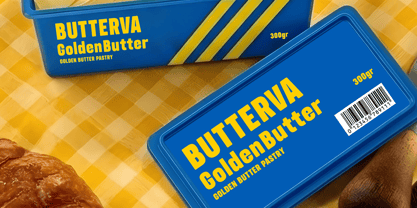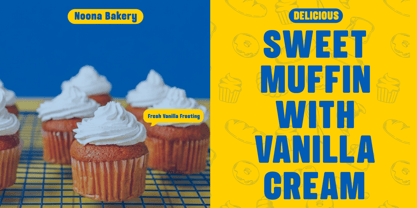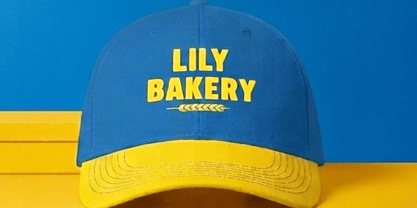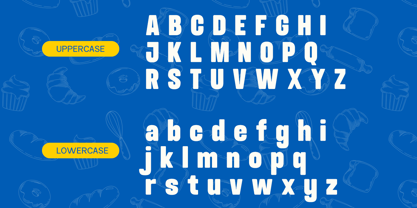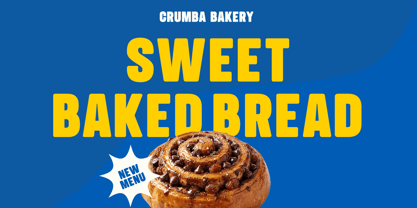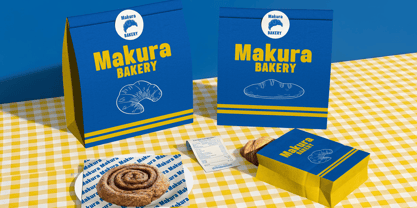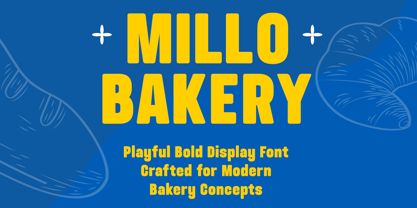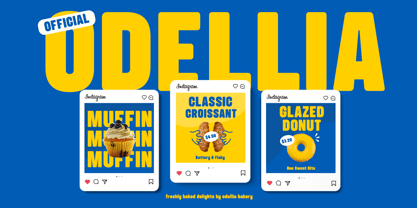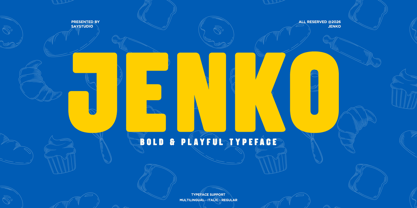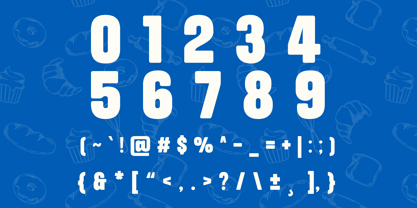
Jenko
by Say Studio
The Jenko Font Family was designed by Mussyayin and published by Say Studio. Jenko contains 2 styles and family package options. More about this family
Jenko is a bold sans serif font crafted to infuse strong personality and playful energy into modern design projects. Featuring thick letterforms, a clean structure, and rounded edges, Jenko offers a powerful yet friendly visual appeal that captures attention instantly. The bold weight guarantees excellent visibility, making it ideal for impactful headlines and expressive branding. This font excels in various applications, including food branding, bakery packaging, snack labels, children's products, posters, menus, social media graphics, and advertising materials. Its cheerful and approachable character is perfect for brands aiming to convey warmth, fun, and creativity while adhering to modern design aesthetics. Jenko seamlessly combines bold typography with simple geometric construction, empowering designers to craft vibrant layouts and memorable brand identities. Whether utilized for packaging, logos, or promotional visuals, Jenko delivers a playful yet professional typographic voice for contemporary design.